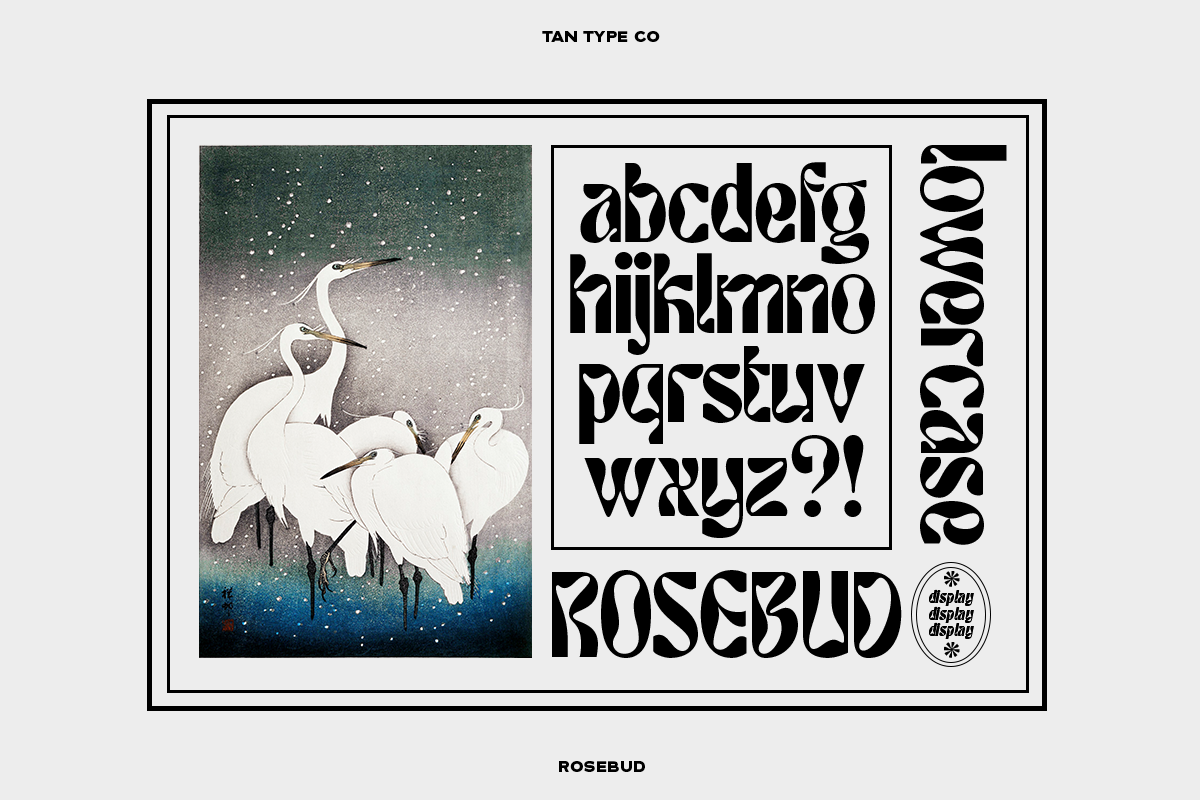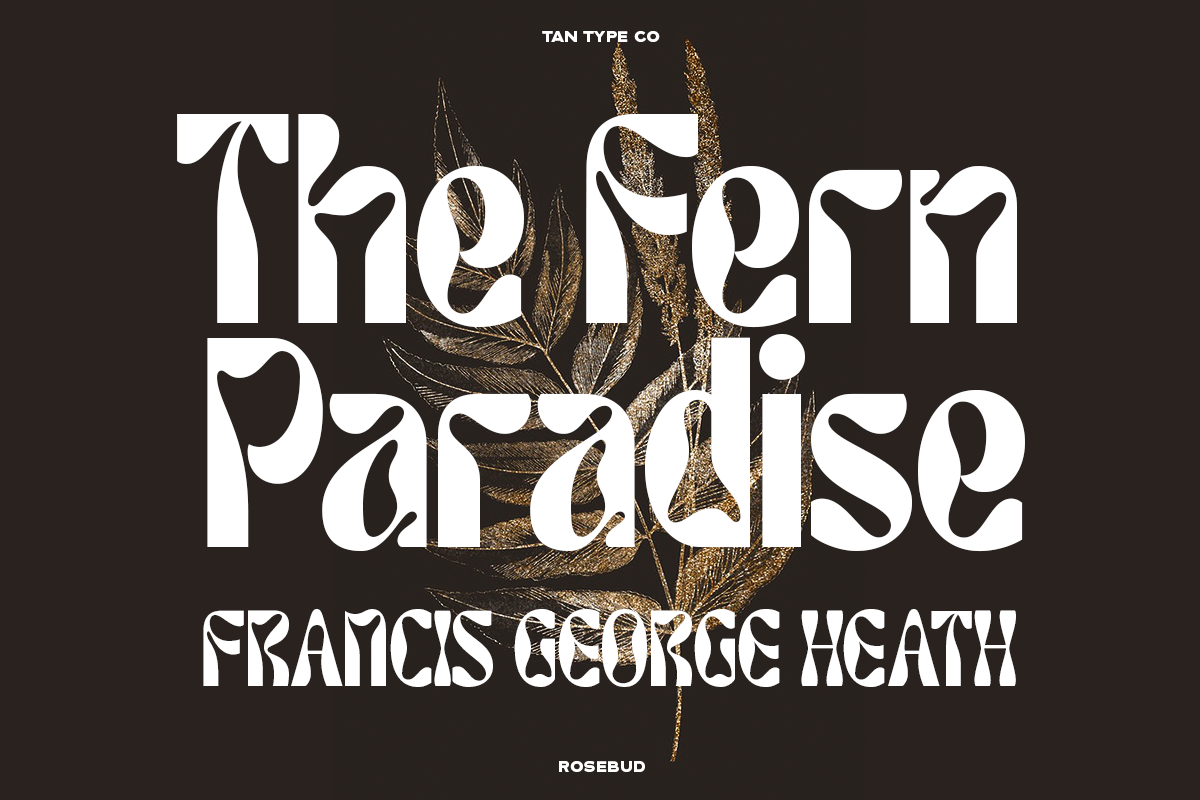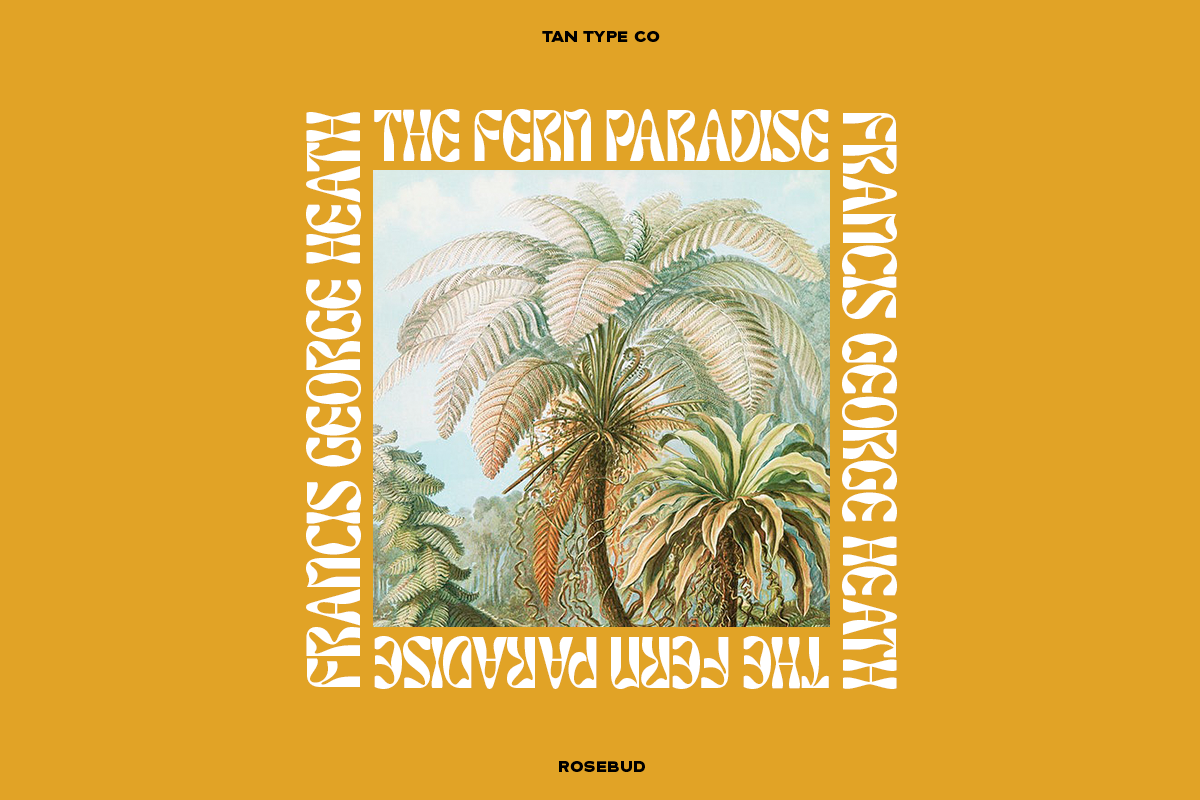
Tan Rosebud is a retro inspired display typeface. A contemporary font with lots of psychedelic twist, perfect for making statement. It is best used for logotype, headlines, headers, signage, apparel design, invitation, poster, flyers, greeting cards, packaging, book cover, printed quotes, cover album, movies, etc.
- Category: Display Font